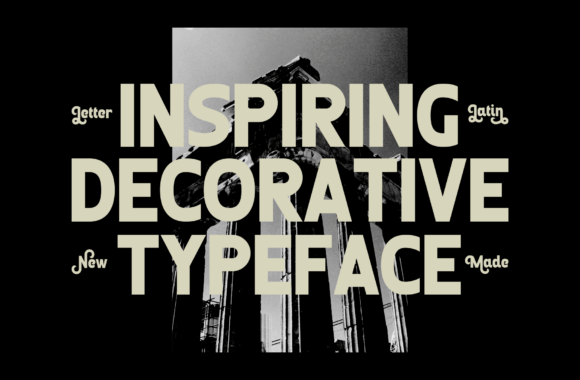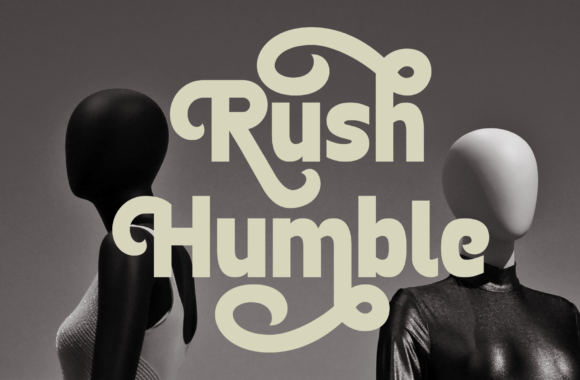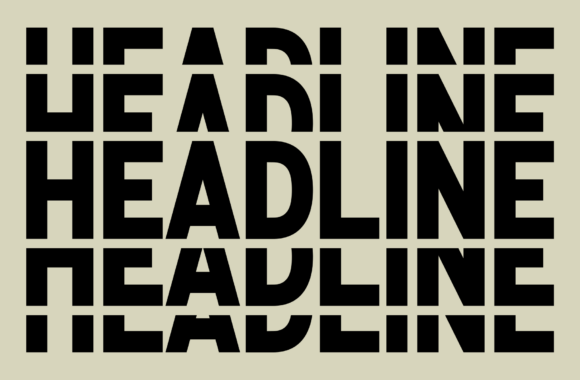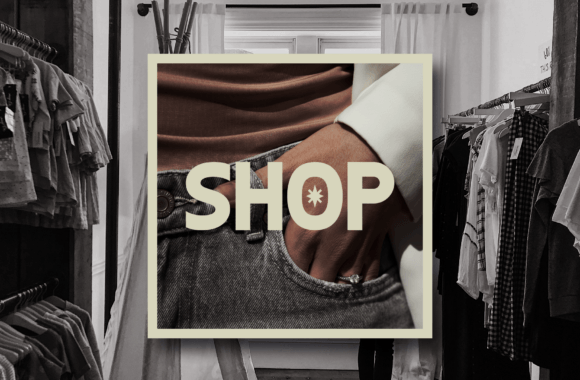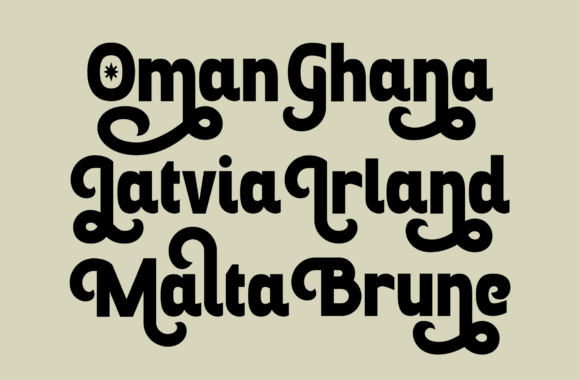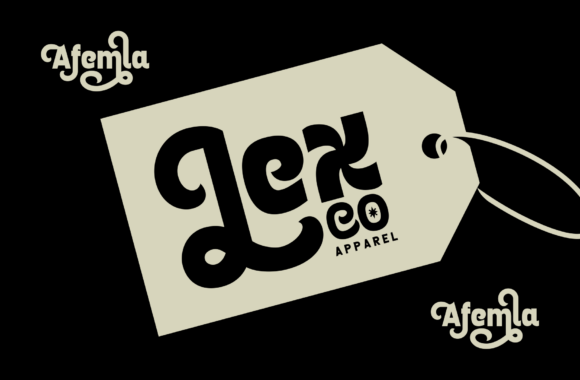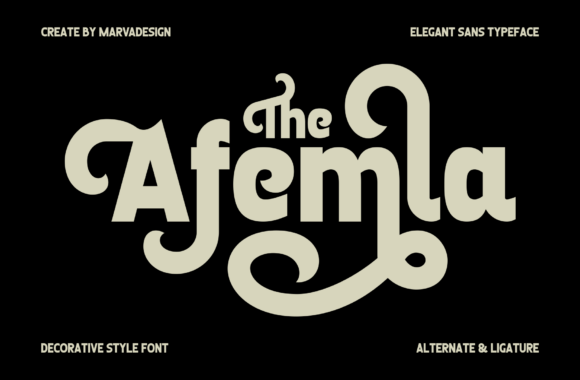
Introducing Afemla: The Elegant Sans Serif Font for Discerning Designers
I’ll never forget the design project that led me to discover Afemla. I was working on a luxury branding campaign for a high-end fashion client, and I was struggling to find the perfect font that exuded both modern sophistication and timeless elegance. The client wanted a distinctive aesthetic that would set their brand apart from the competition, but still convey a sense of refinement and poise. After hours of scouring font libraries and testing various typefaces, I stumbled upon Afemla – and it was love at first sight! ✨
A Personal Review of Afemla
- ✨ Modern elegance: Afemla’s sleek, sans serif design perfectly captures the essence of contemporary luxury, making it ideal for high-end branding and editorial designs.
- ✅ Artistic flair: The font’s unique character and subtle nuances add a touch of artistic sophistication, perfect for designers looking to create visually stunning work.
- 💡 Versatility: Afemla’s clean lines and classic proportions make it suitable for a wide range of applications, from logos and headings to body text and captions.
While Afemla is an exceptional font, there are a few minor quirks to be aware of: 🤔
- ⚠️ Limited language support: Afemla currently supports a limited number of languages, so be sure to check the font’s specifications before use.
- ⚠️ Glyph limitations: Some users have reported that certain glyphs, such as ligatures and stylistic alternates, can be a bit finicky in certain design applications.
The Story Behind Afemla
Afemla was designed by a talented type designer who drew inspiration from the world of art and architecture. The font’s creator wanted to craft a typeface that would capture the essence of modern elegance and sophistication, while still conveying a sense of timelessness and refinement. The result is a font that is both visually stunning and highly versatile. 🌟
| Font Name | Afemla Font |
| Author | Marvadesign |
Q: Is Afemla suitable for body text?
While Afemla is primarily designed for headings and titles, it can be used for body text in certain contexts. However, its legibility and readability may vary depending on the font size and line height.